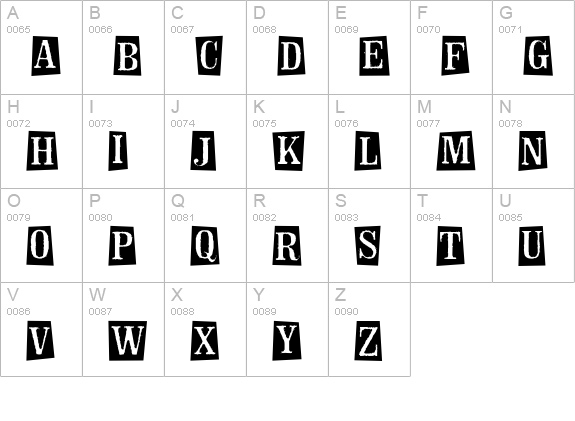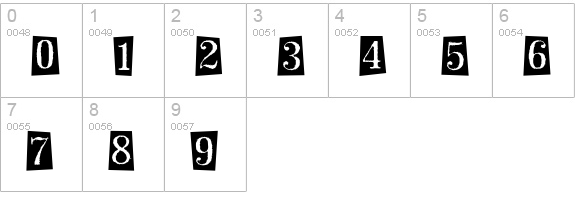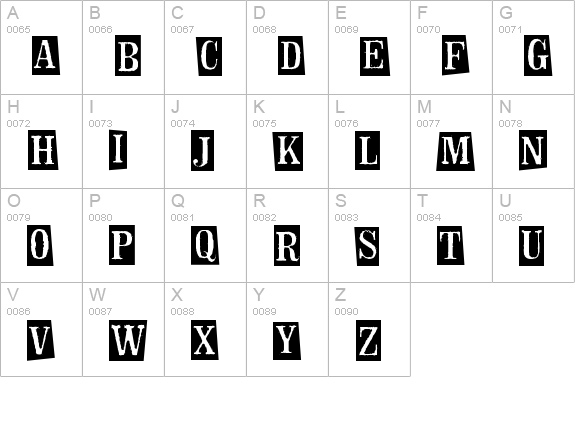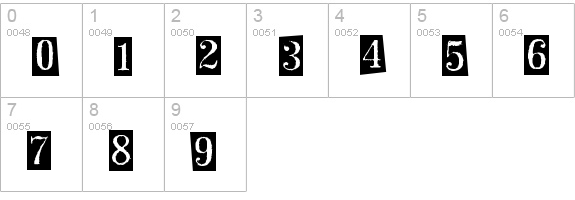
CK Wanted Font Details
CK Wanted is a versatile and stylish font that adds a touch of edginess to any design project. With its bold and eye-catching appearance, this font is sure to make a statement. CK Wanted is perfect for headlines, posters, logos, and more. Its unique and distinctive look sets it apart from other fonts, making it a great choice for projects that require a strong and impactful typeface. The best part about CK Wanted font is that it is completely free to download at FontsMarket.com. This means you can easily add this font to your collection without any cost. Whether you're a designer looking for a new font to experiment with or someone in need of a standout typeface for a project, CK Wanted is a fantastic choice that won't break the bank. Download CK Wanted today and let your creativity shine with this stunning and free font.